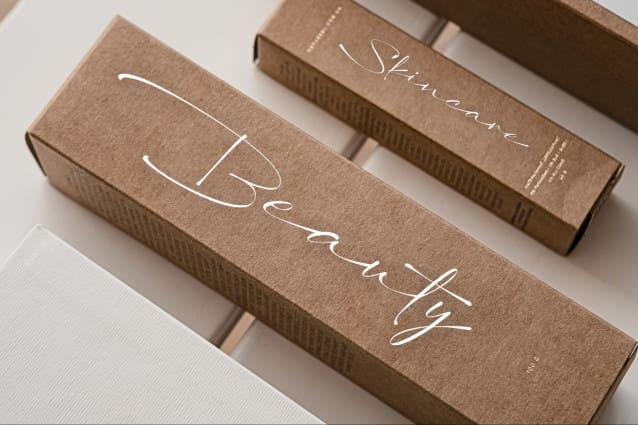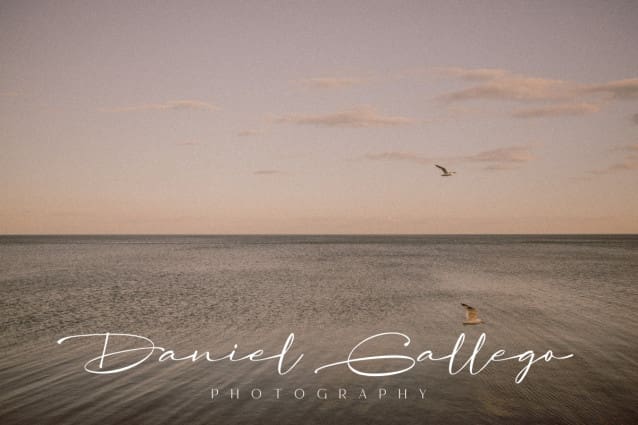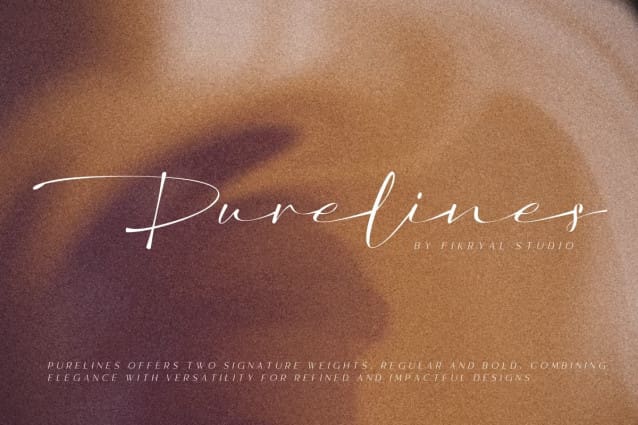
Purelines Signature Font
Purelines Signature Font is a luxurious, signature font designed to bring elegance and versatility to your projects. Featuring two carefully crafted weights — Regular and Bold — this font offers refined sophistication, perfect for upscale branding, invitations, and editorial layouts. Purelines’ smooth, flowing strokes add a timeless touch to any design, making it an ideal choice for creatives seeking elegance with impact.